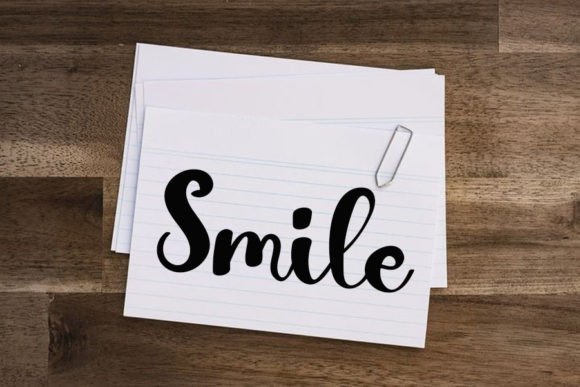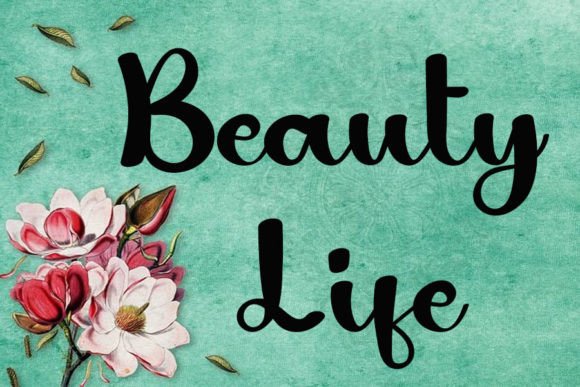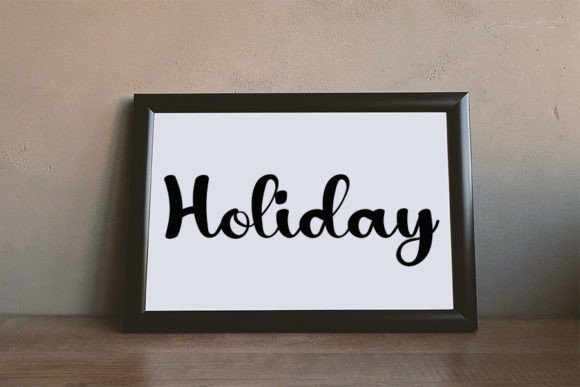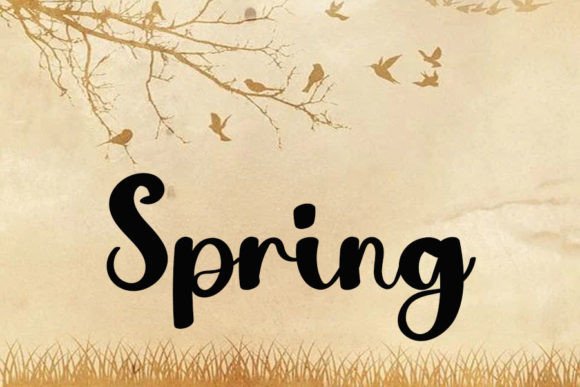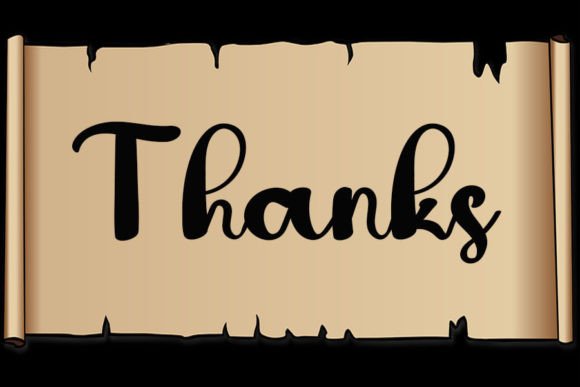
Daily Handmade
About Daily Handmade
Daily Handmade is a magical handwritten font carefully created with a touch of elegance. Clean and a little bit quirky, this font is the perfect fit for all of your logos, branding, social media, and crafty DIY projects.